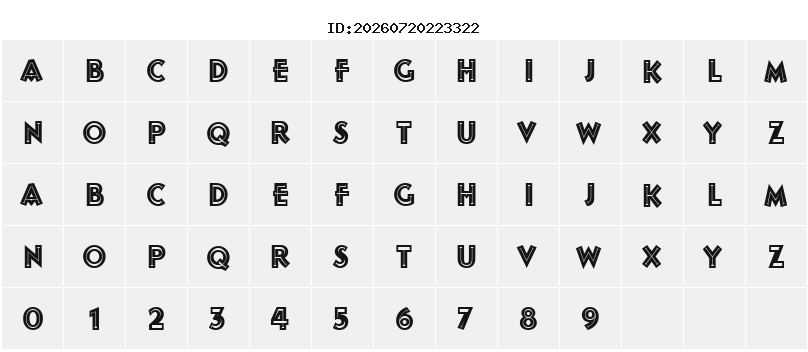
About Follies LET.ttf
Follies LET.ttf is a modern, elegant sans-serif font designed for ultimate readability and visual harmony. Perfect for branding, headlines, web design, and print materials.